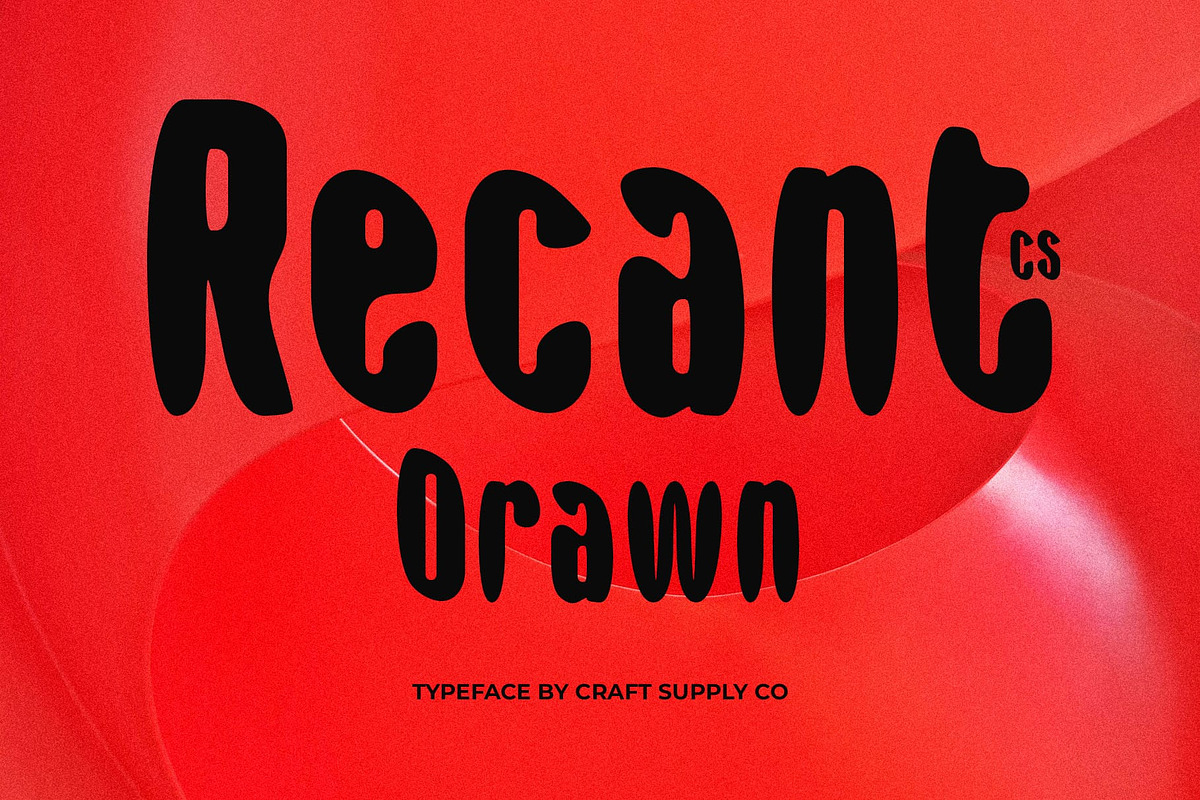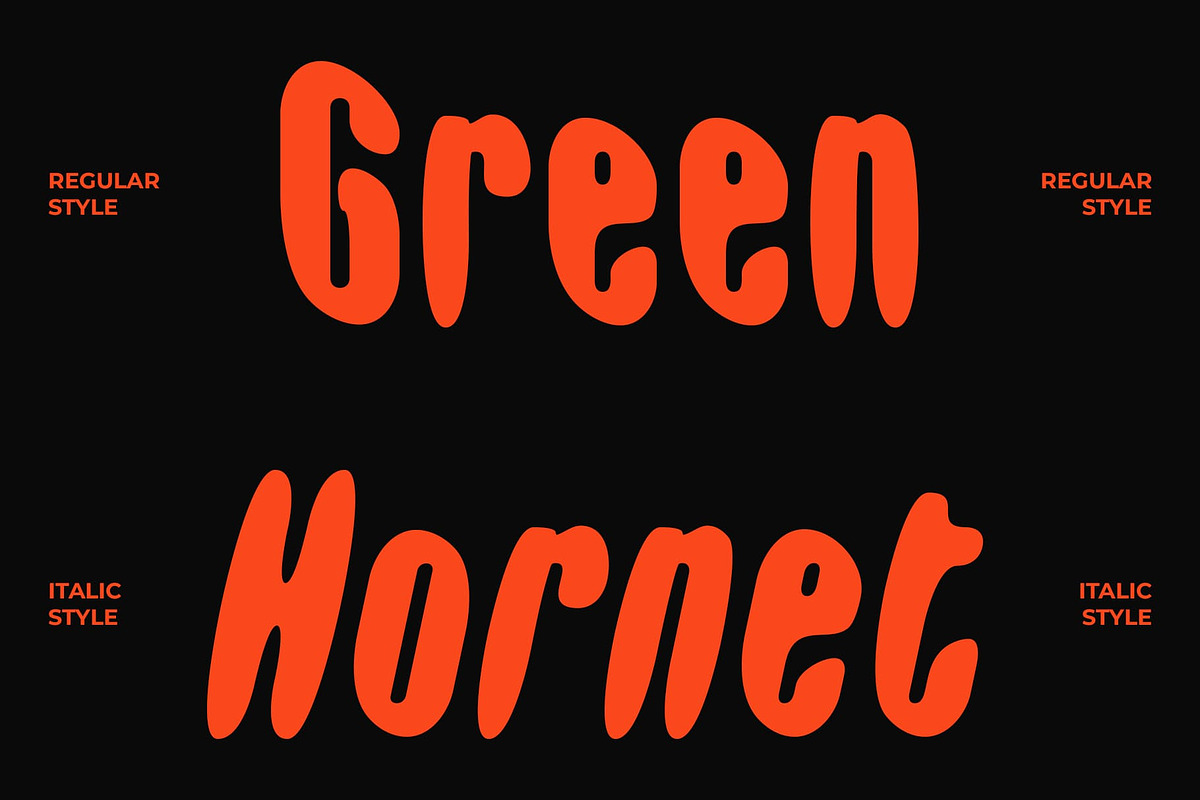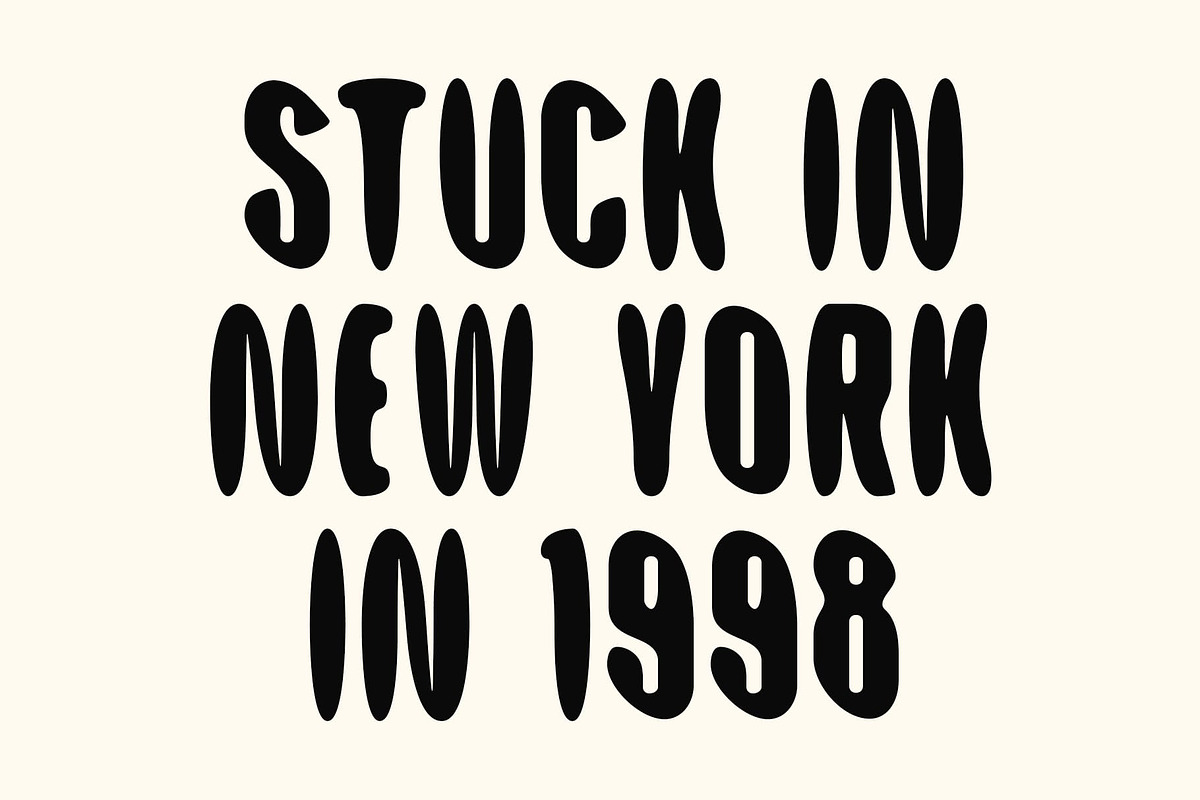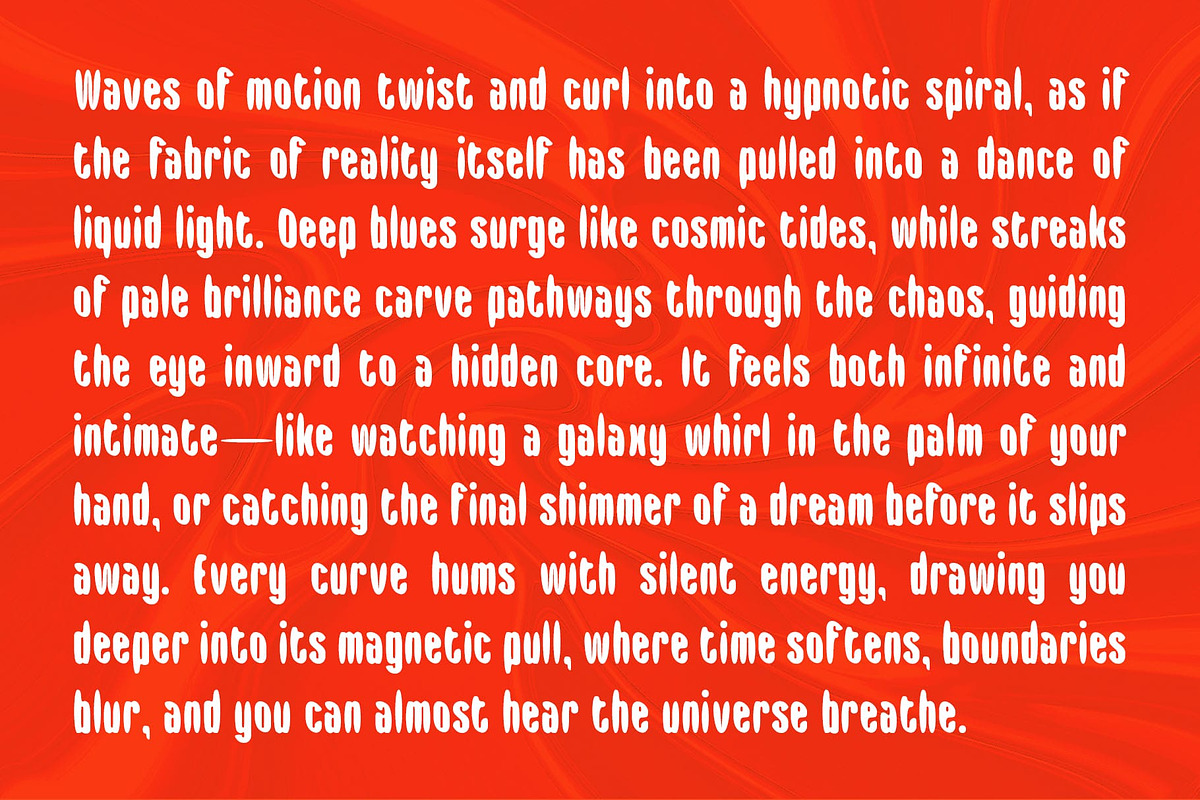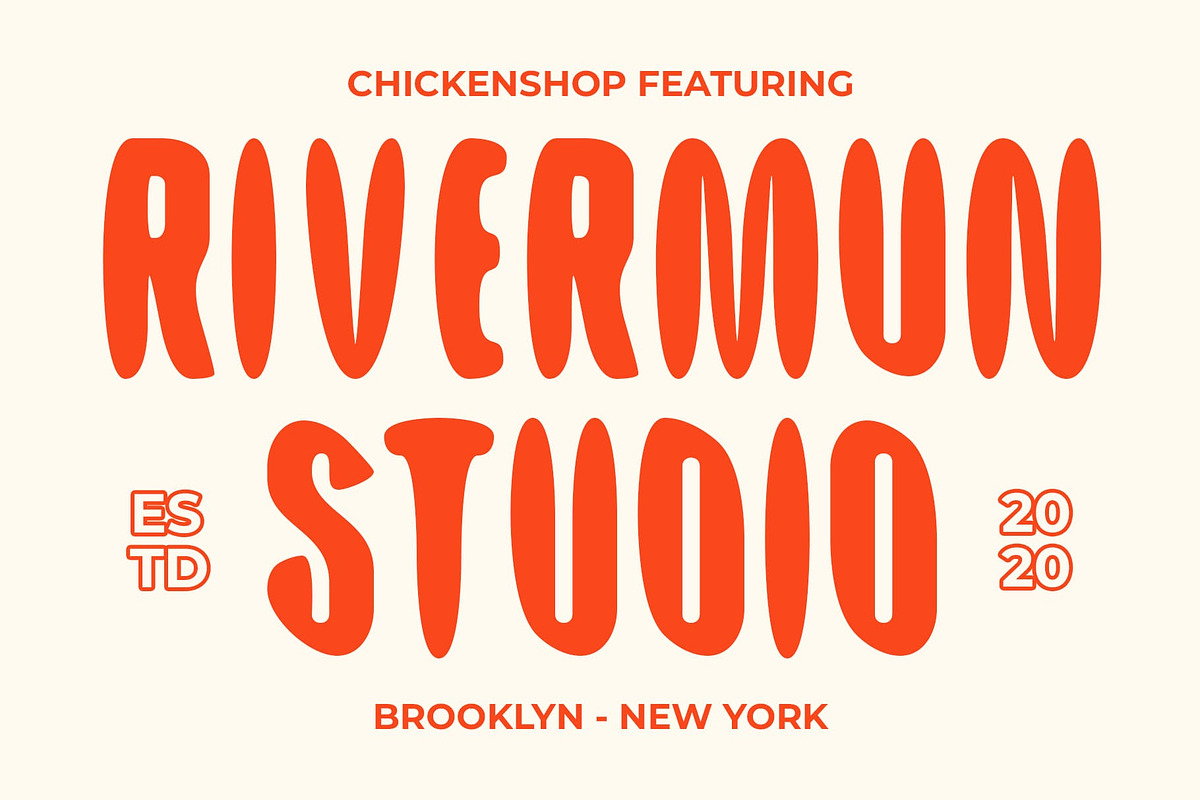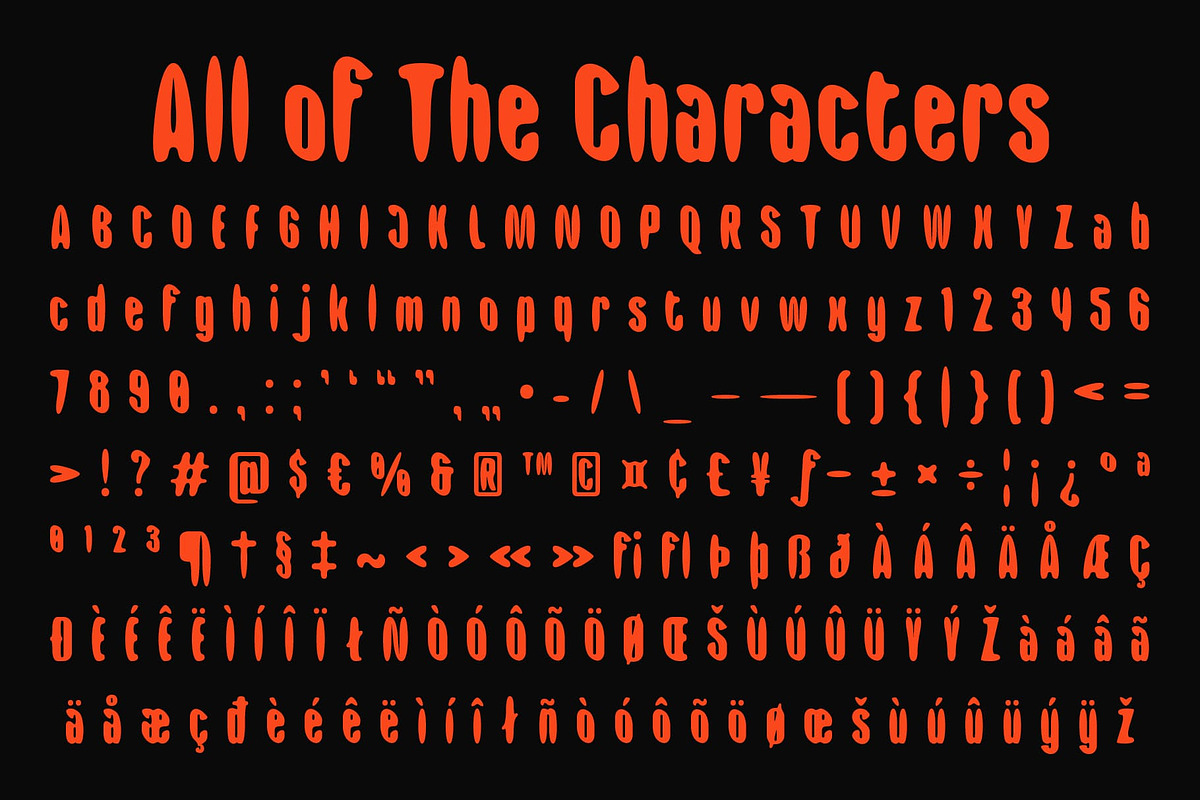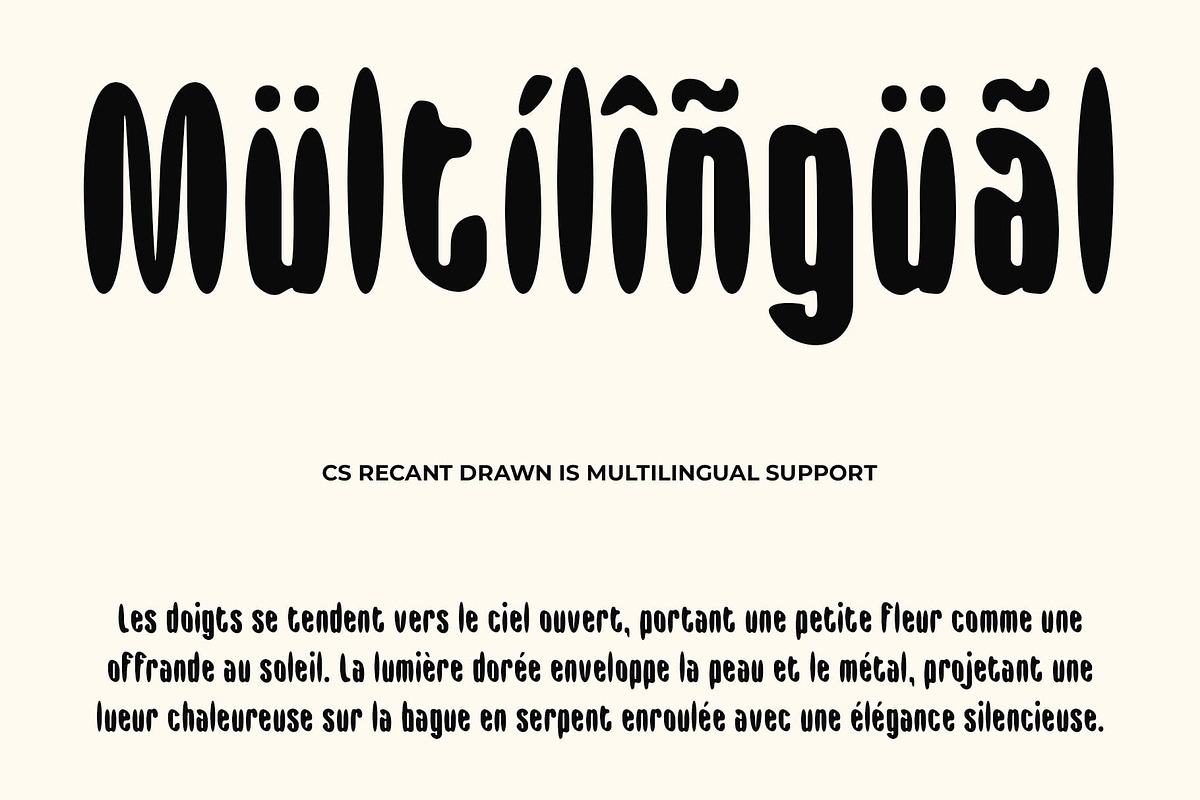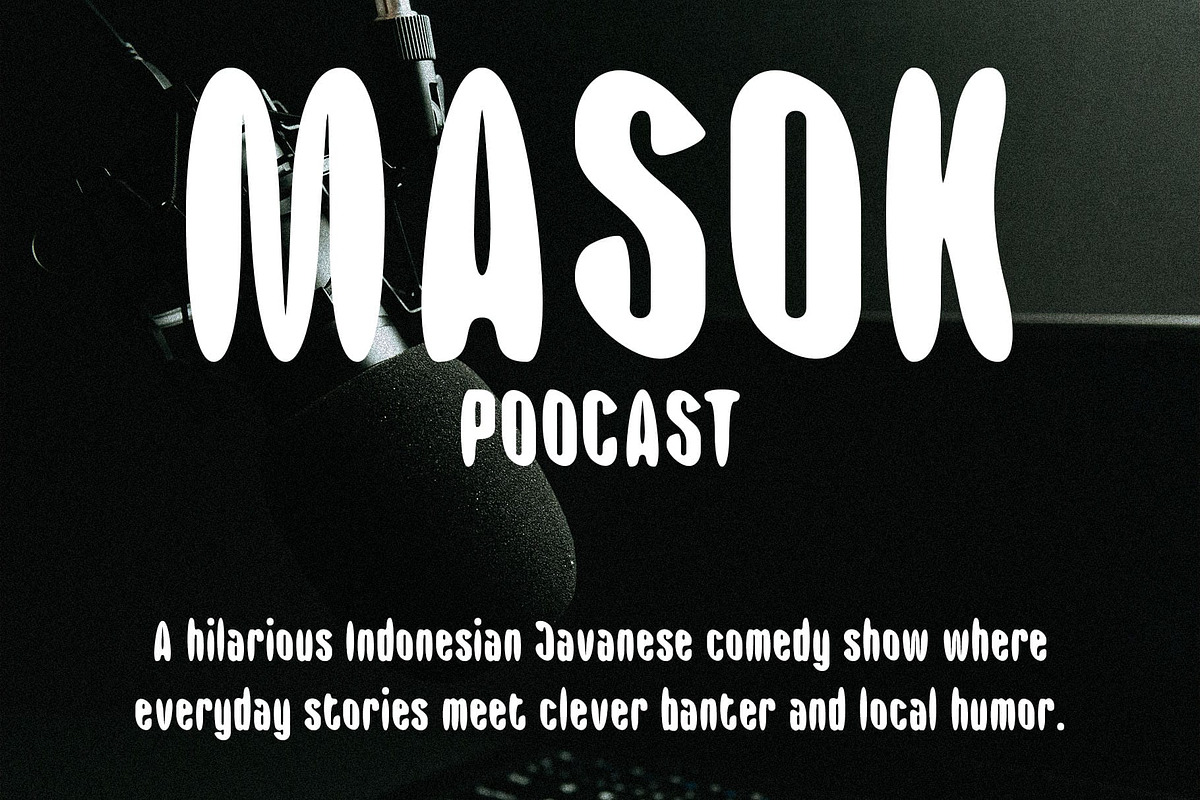
CS Recant Drawn
CS Recant Drawn: Bold Modern Sans Serif with Handmade Character
Modern Display Sans Serif with Drawn Effect CS Recant Drawn is a modern display sans serif font featuring bold, striking letterforms that convey strength, confidence, and contemporary style. The subtle drawn effect adds a handcrafted texture, giving each character individuality and artistic flair.
Handmade Texture for Unique Expression The drawn effect enriches this strong and commanding font with a tactile, artisanal quality, making the font feel lively and expressive. Each letter gains depth and personality, transforming bold forms into dynamic, visually engaging typography.
Striking and Contemporary Style With its prominent weight and clean geometric structure, this expressive and dynamic font creates a strong visual impact. The combination of boldness and handcrafted detail ensures the font delivers both authority and creativity, perfect for modern design contexts.
Versatile for Attention-Grabbing Projects Ideal for posters, branding, headlines, and creative projects, this contemporary and stylish font excels where visibility and impact matter most. Its modern yet characterful look ensures your designs stand out while maintaining artistic sophistication.
Elevate Your Designs with Bold Artistry This focused and impactful font combines striking proportions, handcrafted nuances, and contemporary geometry to create a font that is both visually powerful and expressive. It’s a versatile choice for projects that demand a modern, attention-grabbing, and characterful typographic presence.